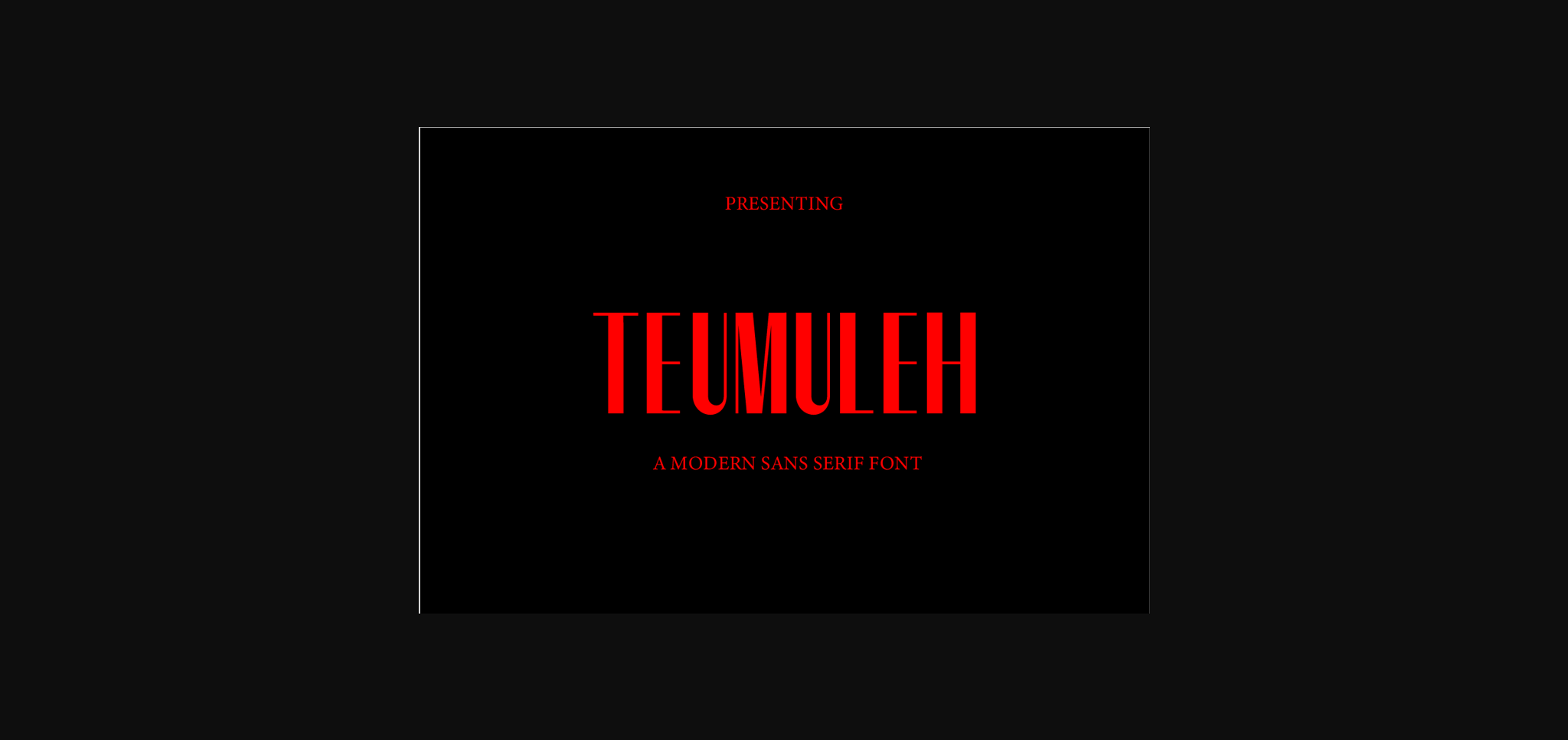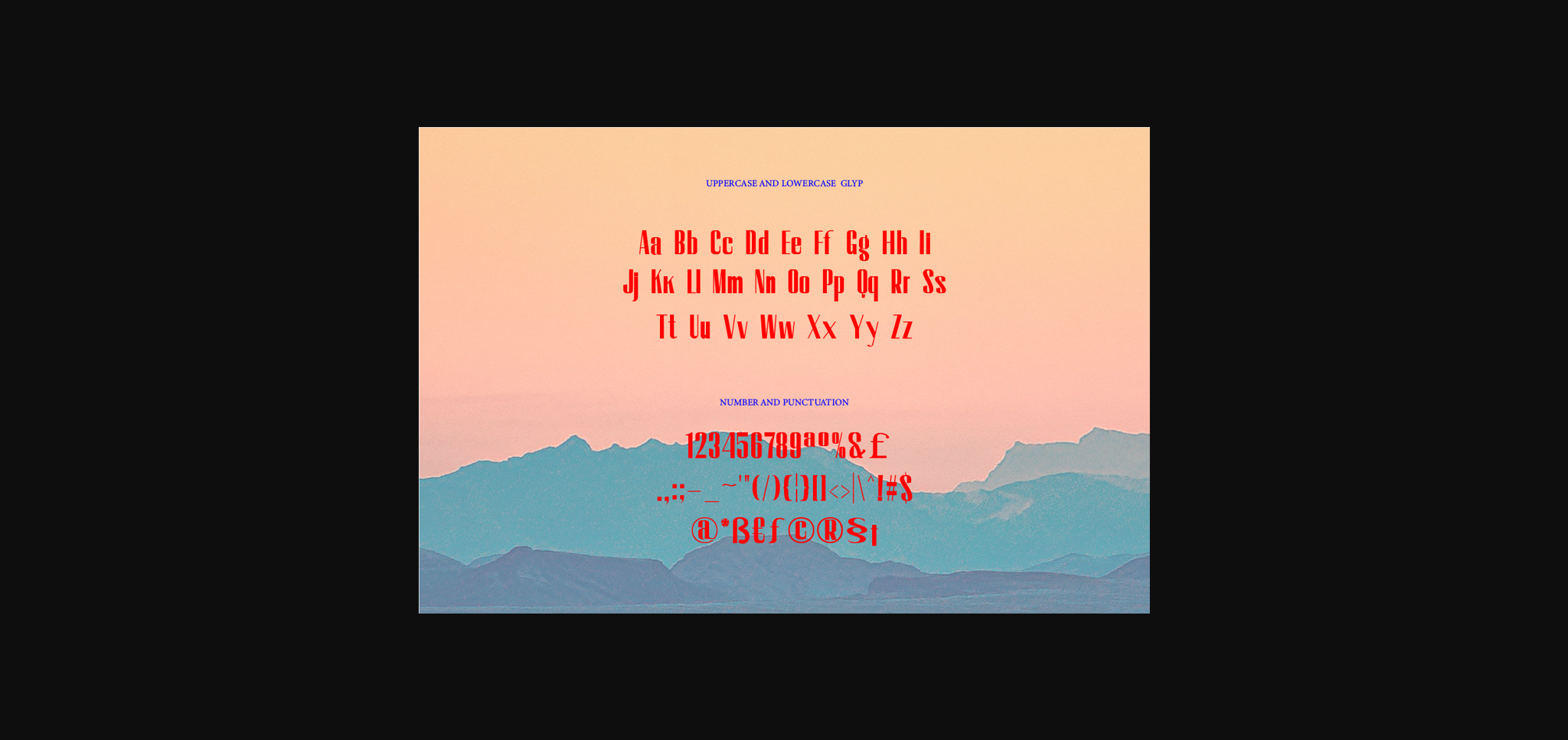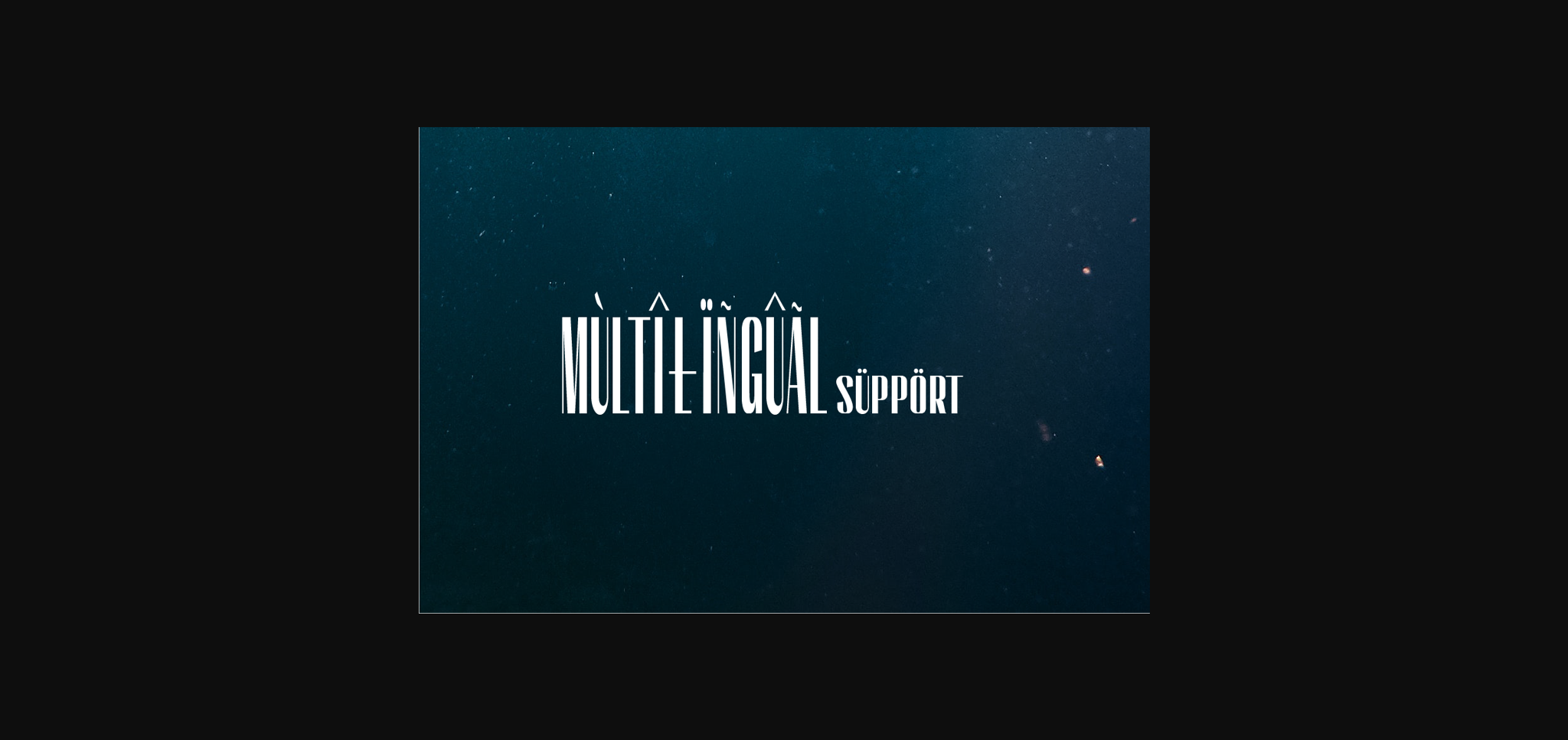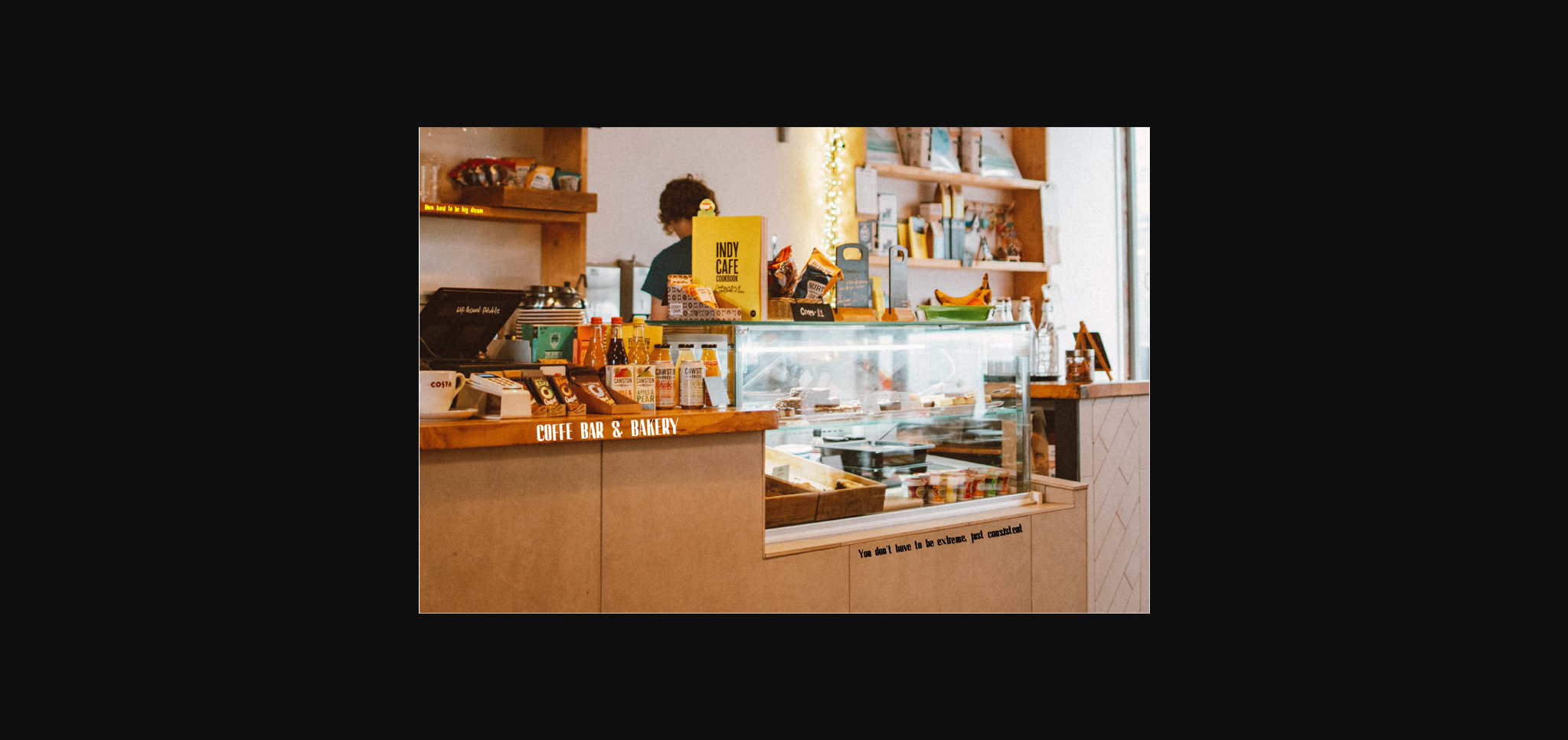
About Tumuleh Font
Tumuleh font is a rough sans font with modern feels. It will be perfectly used for branding, logo design, lettering, logotype, clothing, posters, shopping bags, t-shirts, book covers, photography, special events and other design projects.